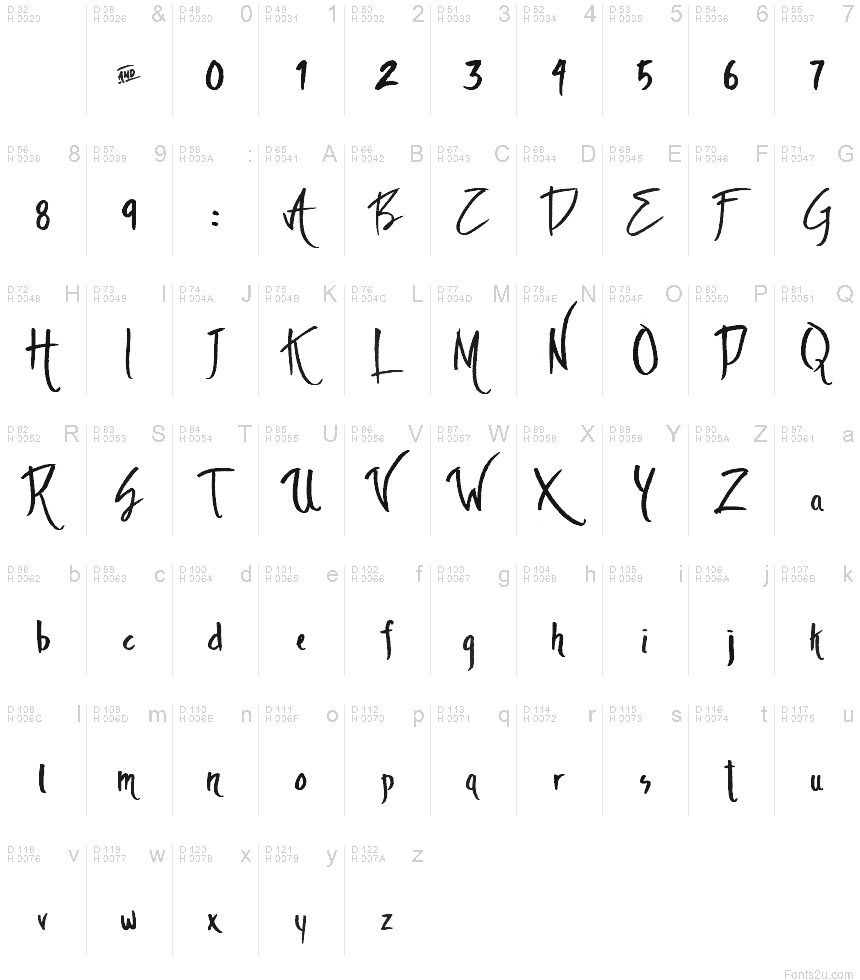
theAmbience
the Ambience - a new handwritten font that is perfect for everything! This font is very easy manipulate which makes anything have a charm of its own. the Ambience is perfect for band names, product packaging, logo designing and branding, photographers, bloggers, and to anything your imagination leads you.